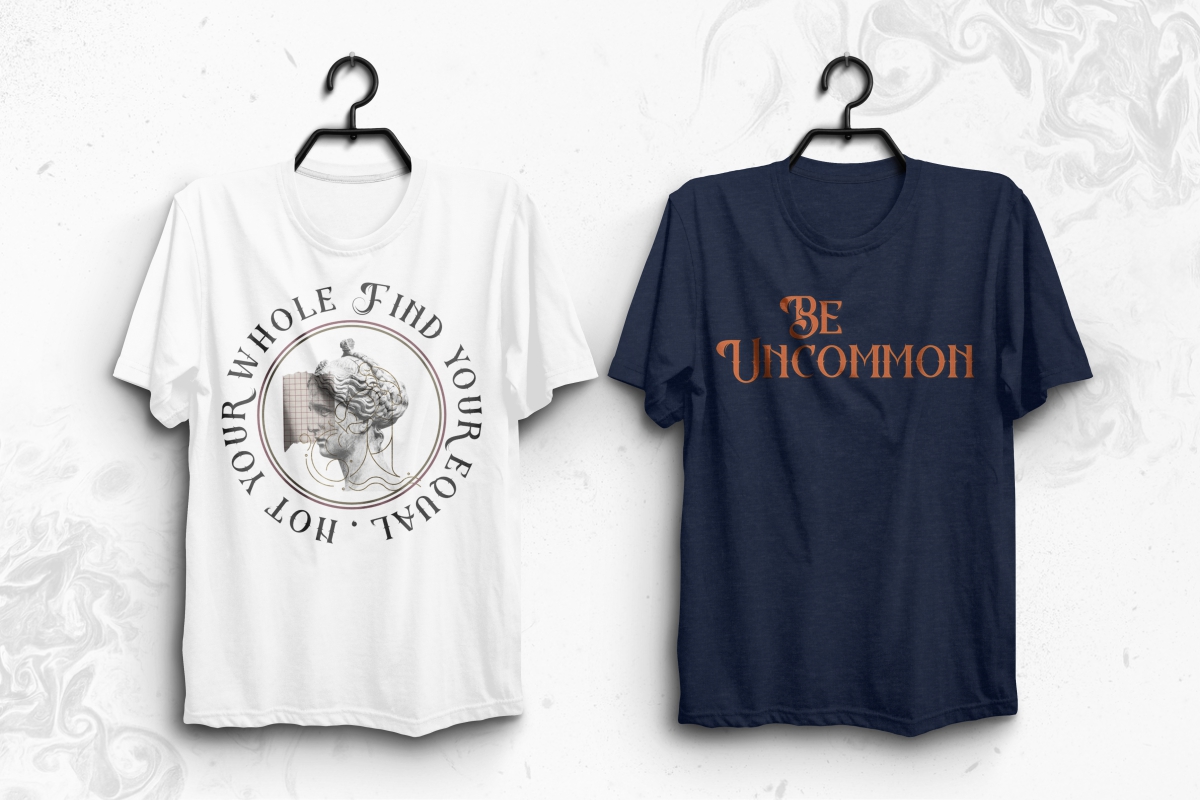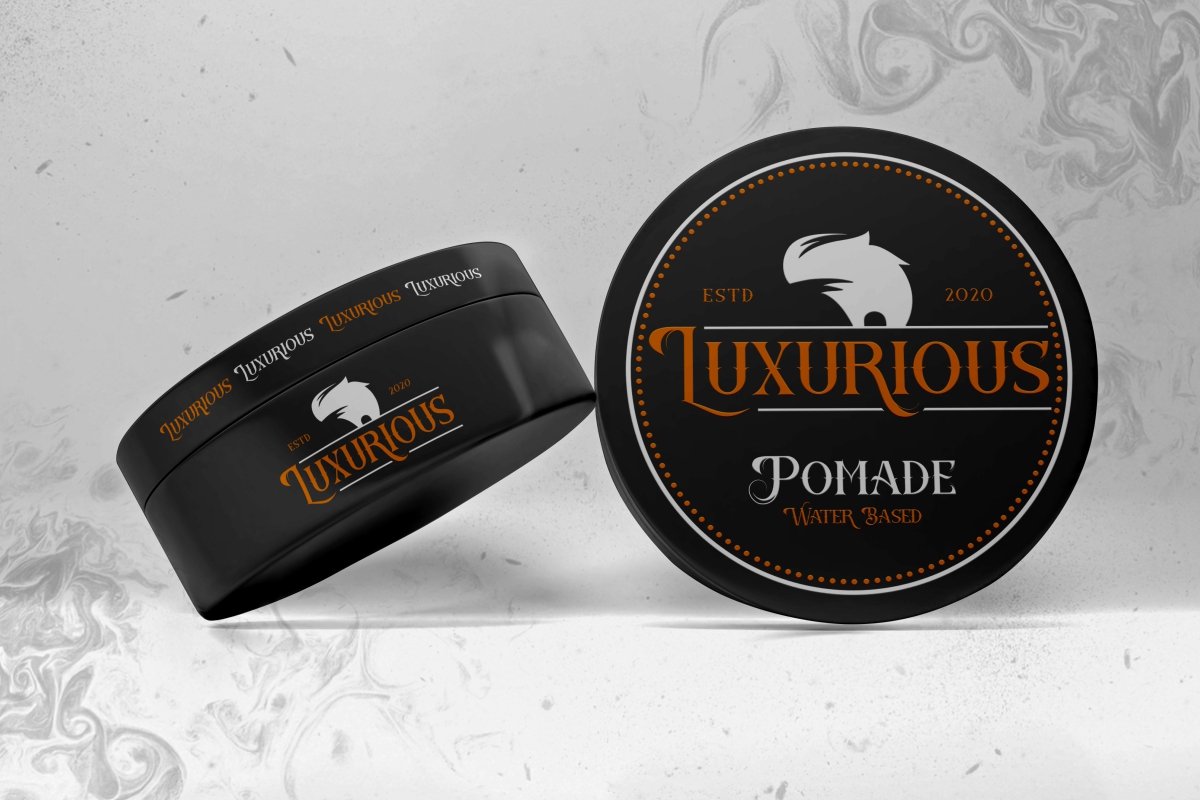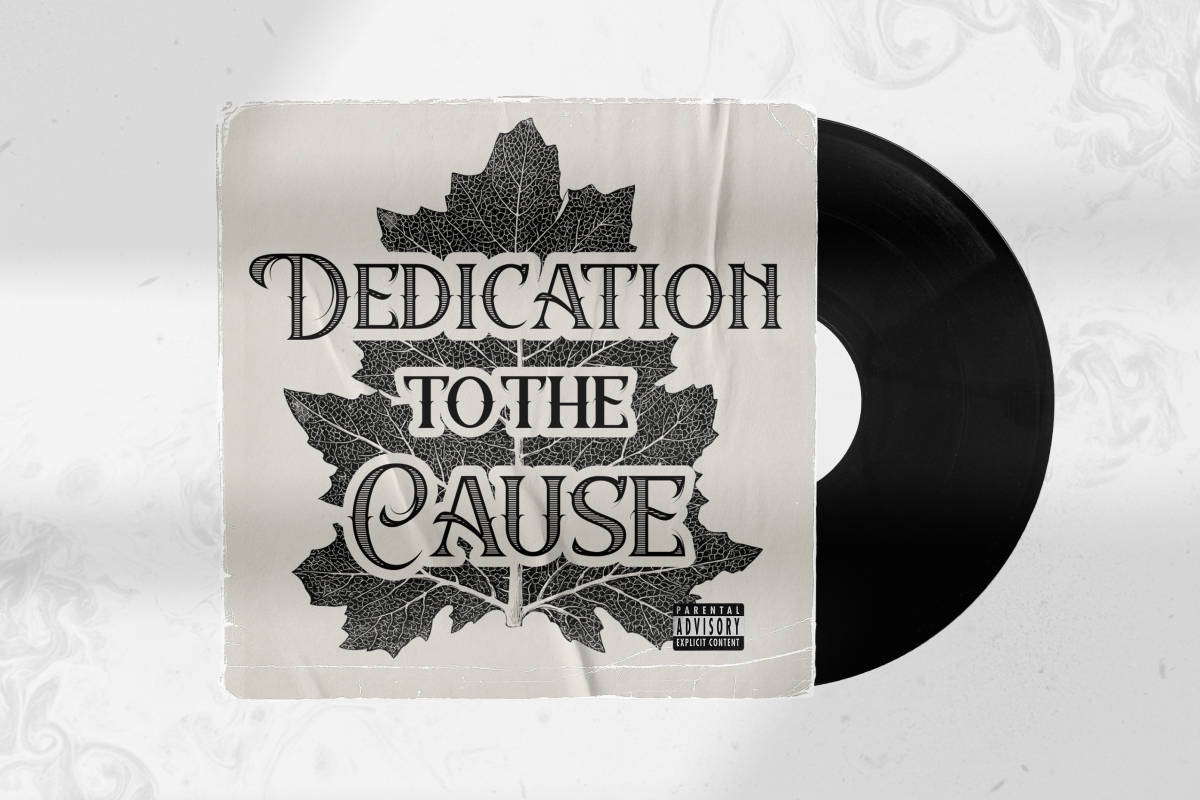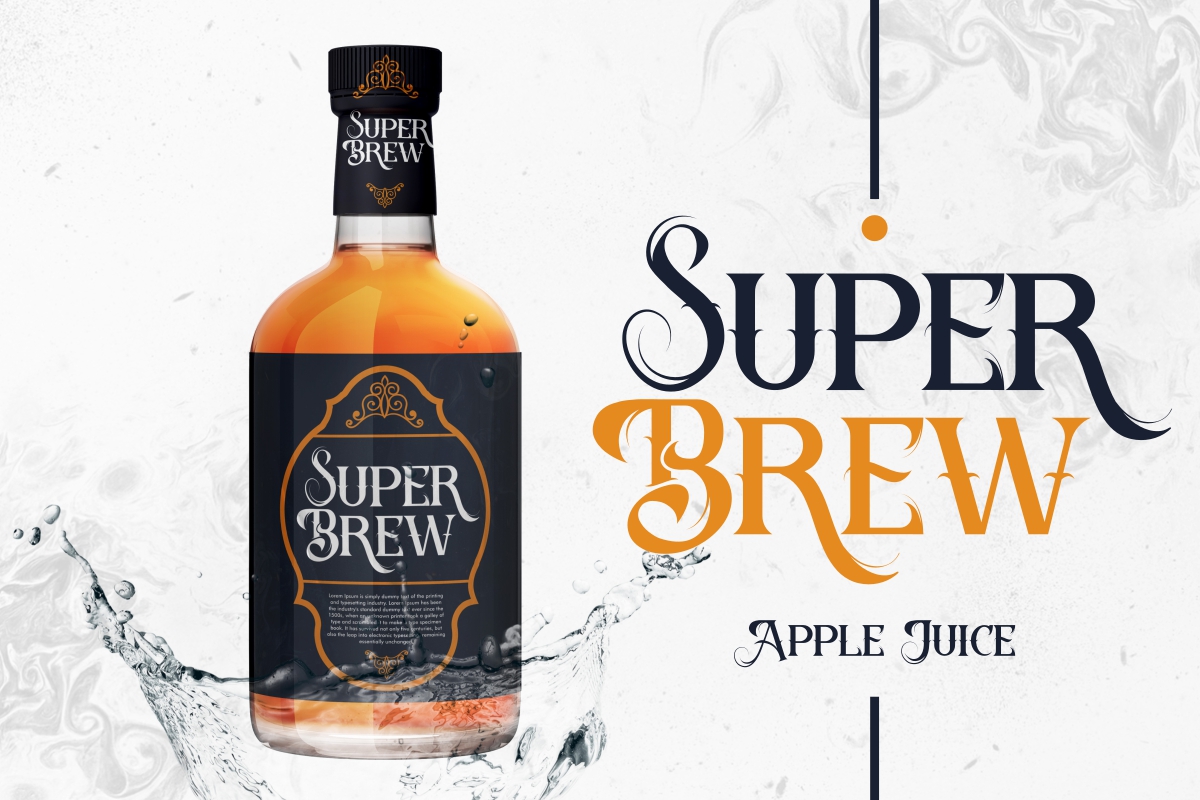
Battlesbridge Font
Battlesbridge Display Font
This is a display with unique character. The style of this font are horror, old, unique with bold curly styles. Inspired by the old scary style suitable for use on projects like Halloween and spooky genres. This font was handcrafted from our Studio here in, Indonesia. Battlesbridge Font will be great for any projects including : logo branding, business card, logo, stationery, signage, title etc.